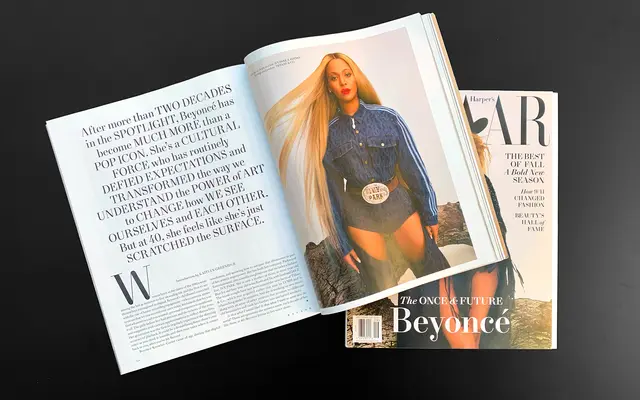
New Paris specimen from Swiss Typefaces
A high-contrast contemporary serif by Ian Party, designed for editorial and cultural publishing contexts.
Designed by Ian Party at Swiss Typefaces, New Paris carries the sharp, high-contrast character associated with fashion publishing and upmarket cultural print. The typeface sits in a tradition of refined display serifs while retaining a contemporary sensibility suited to both editorial spreads and identity work. Swiss Typefaces engaged Christoph Koeberlin for font engineering, reflecting the studio's commitment to technical rigour alongside its design ambitions.
New Paris is a serif typeface with a contemporary editorial character, likely drawing on high-contrast display traditions suited to fashion and cultural publishing contexts typical of Swiss Typefaces releases.